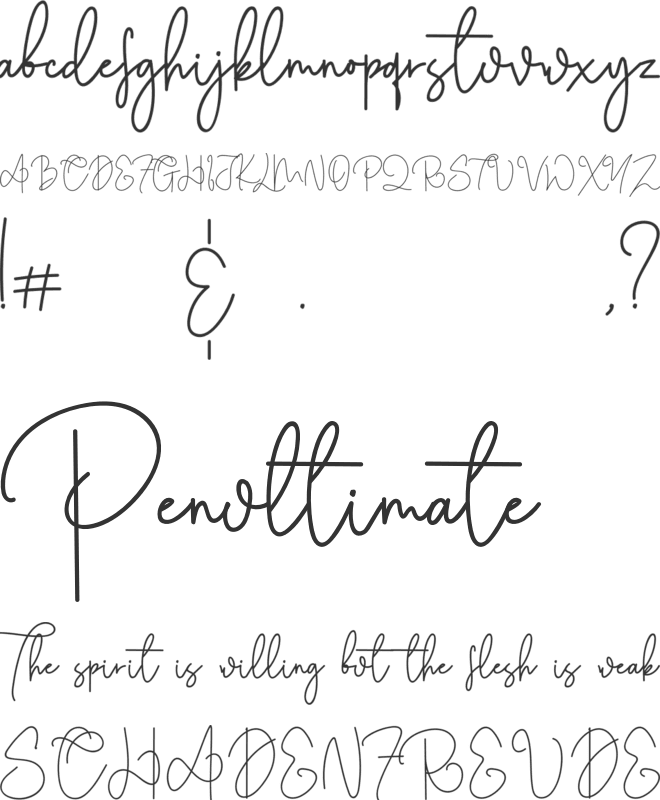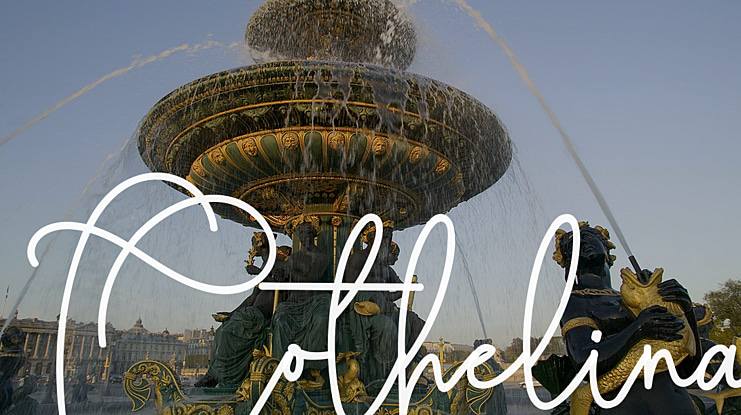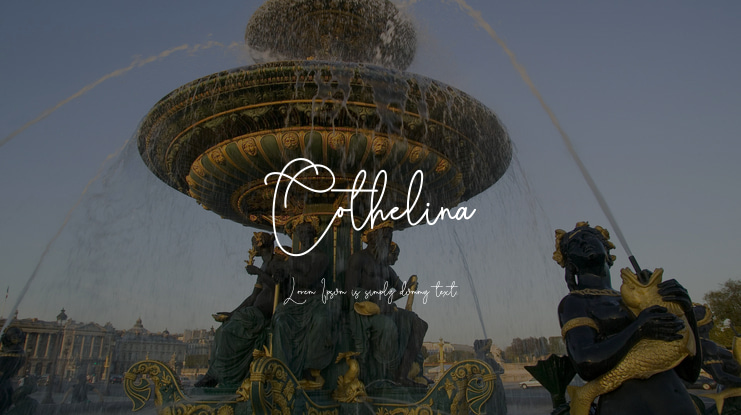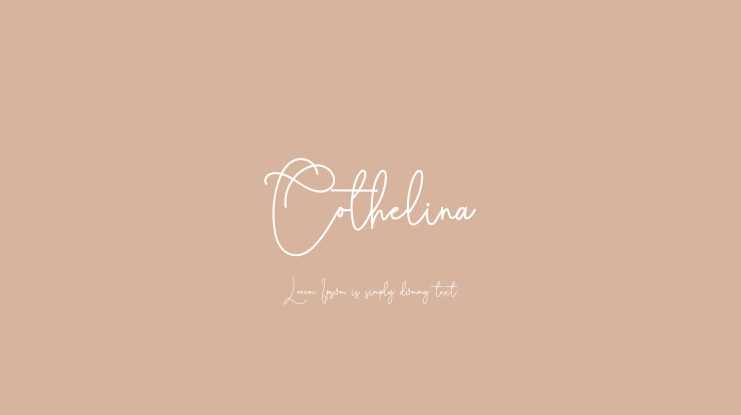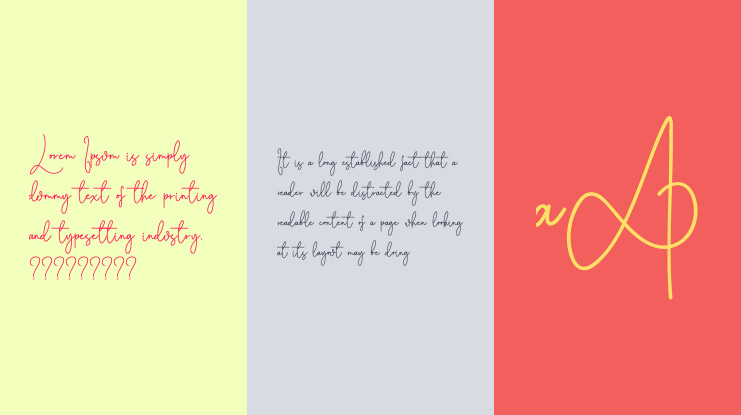
Cothelina Font
Proudly present Another lovingly font "Conthelina" handwritten font his a symbol of a charming girl we keep this font looks elegant, classy, readable, stylish, catchy and easy to use. Golden mind is the great choice for watermark on photography, signature or signature logo design, quotes, album cover, business card, and many other design project. Golden mind is here to make your work to high level!!!
Feautures:
Basis Letter: A – Z and a – z
Number & Functional
Ligature
Alternate